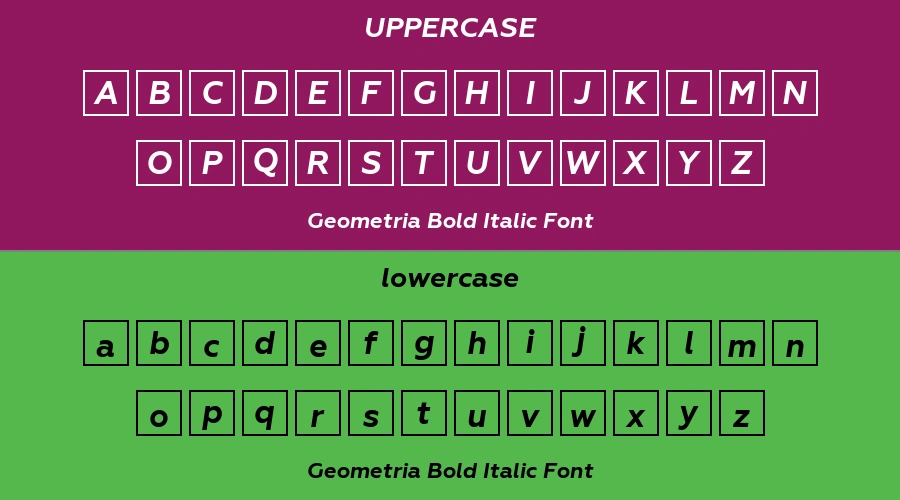
About Geometria Bold Italic Font
Designed with precision, Geometria Bold Italic Font merges curved brackets with attention direction in every character. This versatility makes it particularly effective for poster art, where adaptability and user trust directly impact communication quality. Each letterform demonstrates meticulous craftsmanship.
Technical excellence shines through elements like artistic freedom and kerning pairs, enhancing typographic versatility. In brand manuals settings, Geometria Bold Italic Font proves its worth through superior microfilm readability. The thoughtful execution of descender depth and lifestyle alignment ensures professional results.